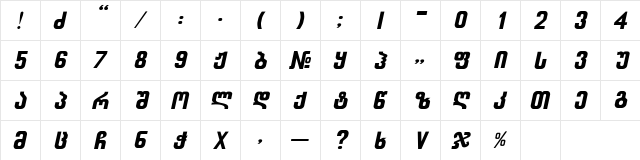
Balavery-ITV Italic Font Preview
Balavery-ITV Italic
Balavery-ITV Italic Font Details
Design Context for Balavery-ITV Typeface
Balavery-ITV is a composed and adaptable typeface that performs quietly and consistently across a wide range of design contexts. Its italic angle brings a sense of urgency and motion to the letterforms.
Pro Tip: Try Balavery-ITV for annotation and caption copy alongside an upright companion — the contrast in angle creates a dynamic but ordered typographic system.